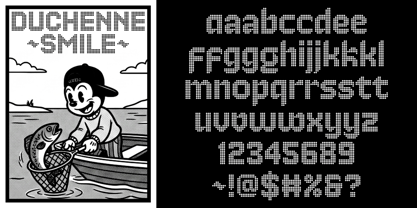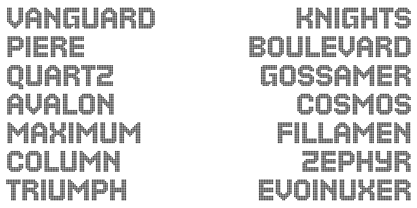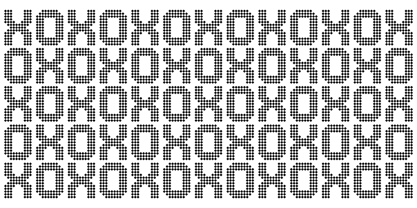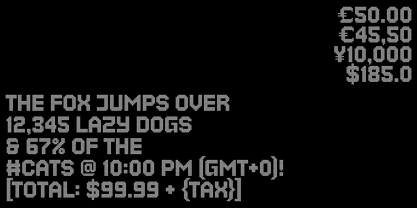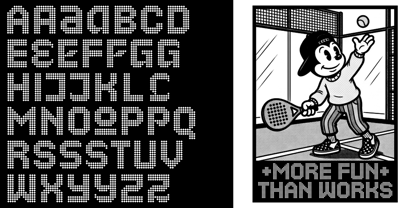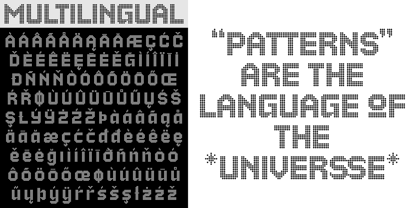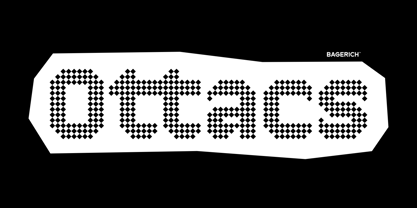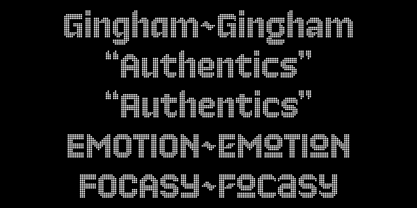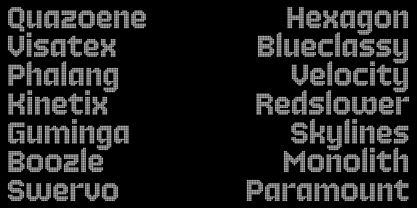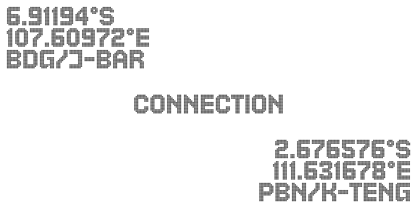
The Ottacs Font Family was designed by Reza Rasenda and published by Zealab Fonts Division. Ottacs contains 1 styles. More about this family
This typeface is a striking fusion of textile heritage and digital precision, drawing direct inspiration from the classic argyle pattern. By utilizing a meticulous grid of tilted squares, each character is constructed through a rhythmic arrangement of diamond shapes. This geometric foundation creates a unique "knitted" aesthetic, where the negative space between the diamonds mimics the intricate weave of traditional hosiery and knitwear. The result is a bold, display-oriented font that feels both nostalgic and avant-garde, capturing the structured elegance of diamond-patterned fabrics in a modern typographic form. Beyond its sartorial roots, the font functions as a versatile tool for high-impact graphic design. The consistent use of diamond-shaped modules lends a shimmering, crystalline texture to the letterforms, making it particularly effective for branding, posters, and digital interfaces that require a tactile, decorative touch. While the architecture is deeply rooted in geometric repetition, the legibility remains crisp, allowing the playful interplay of light and shadow inherent in the diamond motif to shine. Whether used for a tech-forward project or a retro brand campaign, this font brings a sophisticated edge through its celebration of the diamond's sharp, symmetrical beauty.
Ottacs